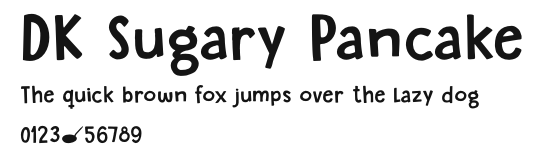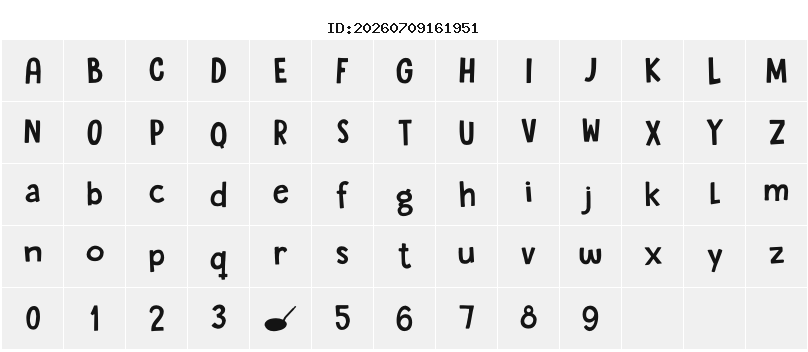
• Font Name: DK Sugary Pancake
• Designer: David Kerkhoff
• Manufacturer: David Kerkhoff
About DK Sugary Pancake.otf
DK Sugary Pancake.otf is a modern, elegant sans-serif font designed for ultimate readability and visual harmony. Perfect for branding, headlines, web design, and print materials.